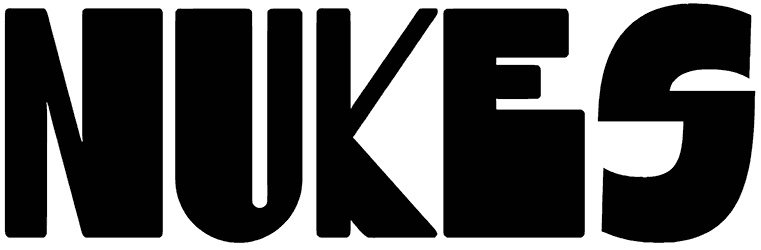
TF Nukes Font
Using a distinct visual for your text will be a perfect choice to hook lots of observers, and this groovy font can be a nice offer. The TF Nukes font has eye-catching and cool letters that can bold your intended words. Lowercase letters and numbers are not available, but with two sets of capitals, this retro font can add a whimsical vibe to your projects.